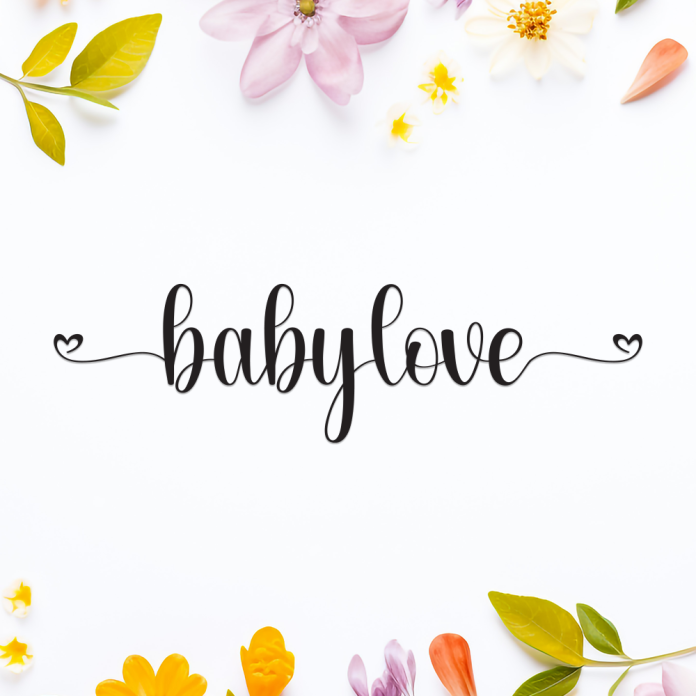
Babylove is a sweet and heartwarming handwriting font designed to bring a sense of tenderness and affection to your projects. Its soft curves and gentle strokes make it perfect for anything related to love, family, and warmth.
Cute and charming handwritten style
Perfect for baby announcements, greeting cards, branding, and scrapbooking
Smooth, rounded letterforms with a natural flow
Includes uppercase, lowercase, numbers, and punctuation